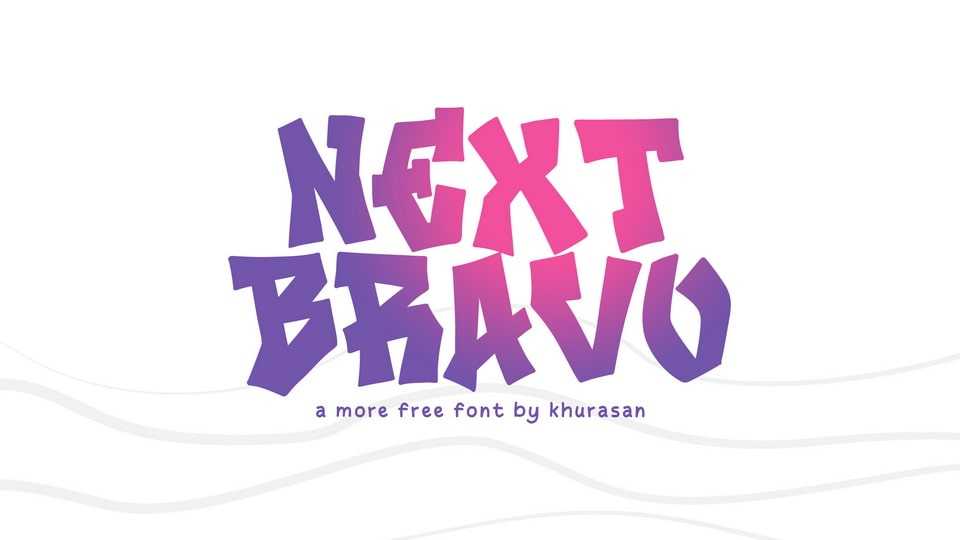
Download Next Bravo font, a hand lettered typeface that unleashes the raw energy and urban artistry of the streets. Next Bravo font is designed to capture the bold and unapologetic spirit of graffiti.